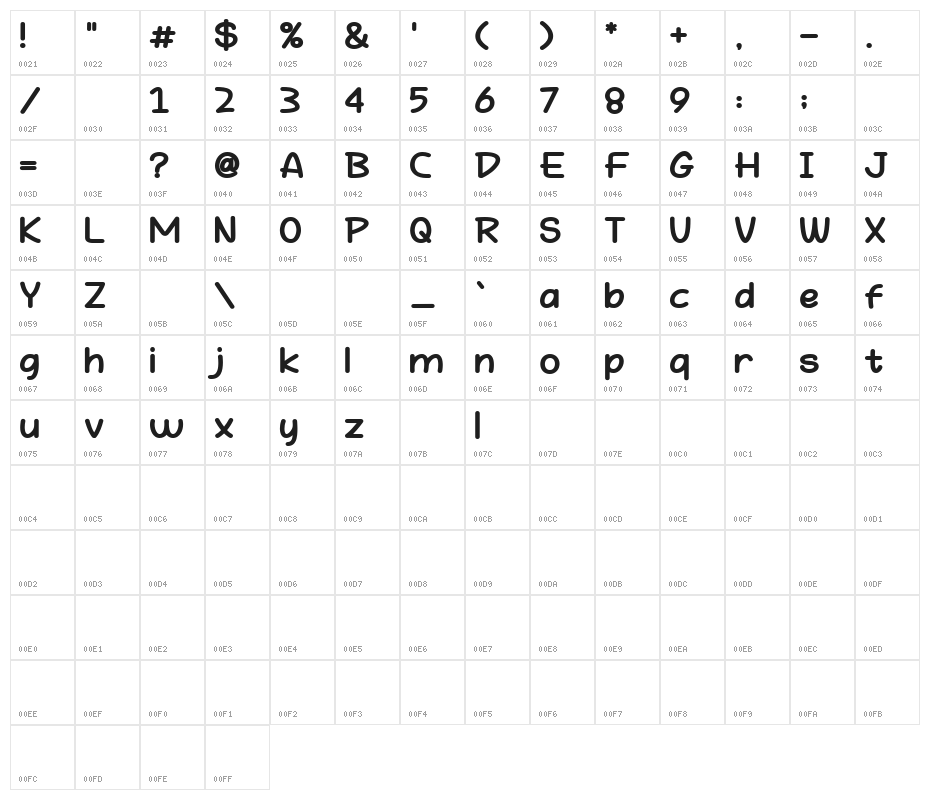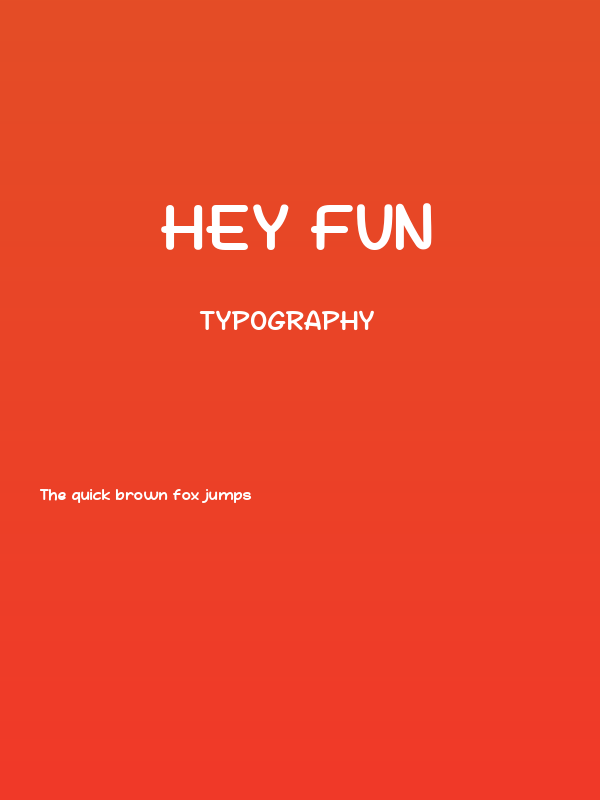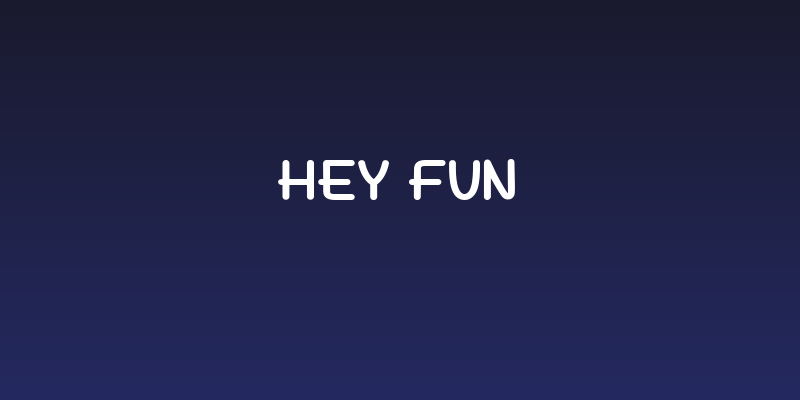
Hey Fun Font
Hey Fun Description
This playful and rounded font features a casual and friendly style, with smooth curves and a consistent stroke width. The characters are bold and slightly condensed, giving them a strong presence while maintaining a whimsical and approachable feel. The uppercase letters are well-proportioned, and the lowercase letters have a gentle, flowing quality that enhances readability. The numerals are clear and distinct, matching the overall playful aesthetic. Special characters are included, maintaining the same rounded and friendly design, making this font versatile for various creative applications.
| Width | Condensed |
| Overall Style | Playful |
| Proposed Projects | Ideal for children's books, playful branding, casual invitations, and fun social media graphics. |